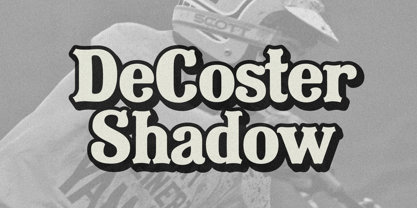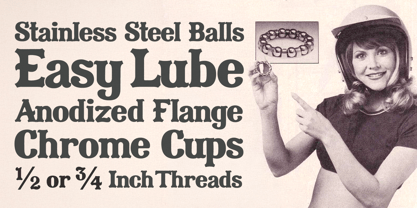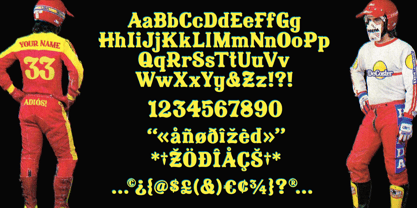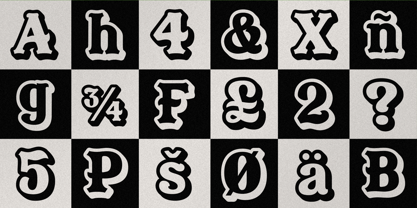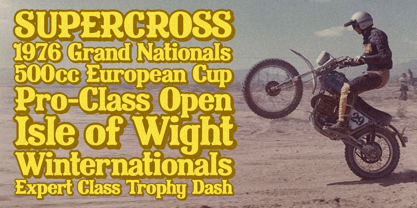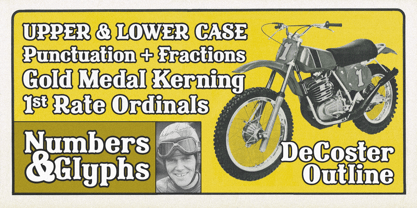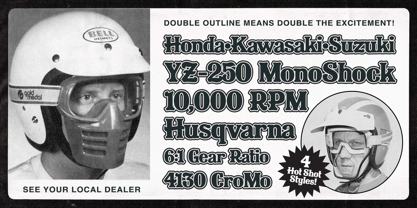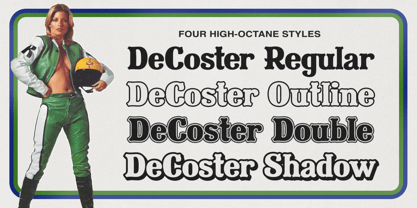
DeCoster
Die Schriftfamilie DeCoster wurde von Scott Allemeier entworfen und von Bouffonts veröffentlicht. DeCoster enthält 4 Stile und Familienpaketoptionen. Mehr über diese Familie
Inspired by the open-throttle power of 1970s motocross, DeCoster is a tricked-out type family that's built for speed and dripping with high-octane swagger. Experience the thrill of four high-flying typefaces that will give your designs an edgy credibility that couldn't be bought before today. Strong and so impactful, you'll wonder how you ever lived without them.
Designer: Scott Allemeier
Incorporating the imperfect production techniques of pre-digital typography, Bouffonts typefaces embrace the grit, funk, and questionable decisions of 1970s design. Every glyph is created using pencil and paper, digitized to vectors, then individually kerned in order to maintain just the right amount of tension and wobble to keep things interesting.